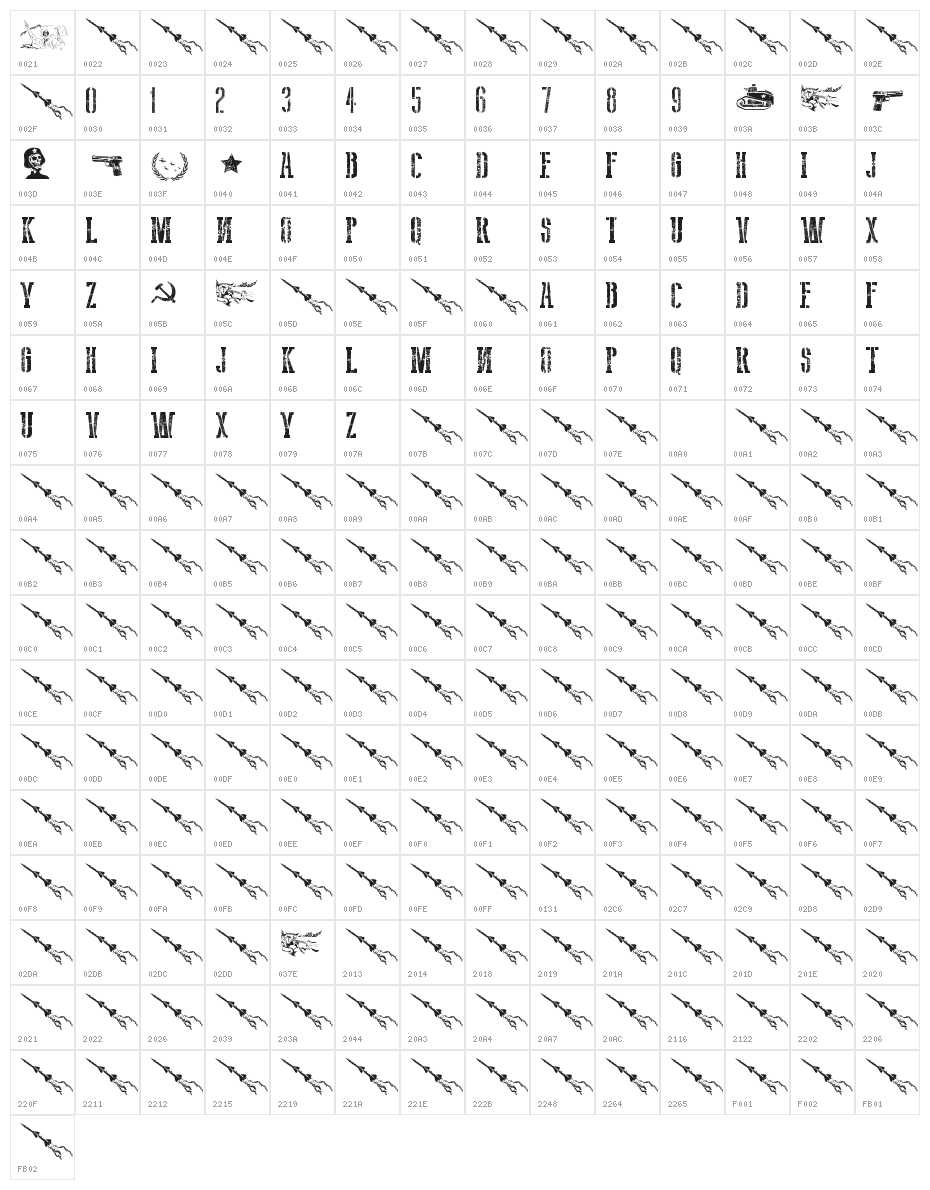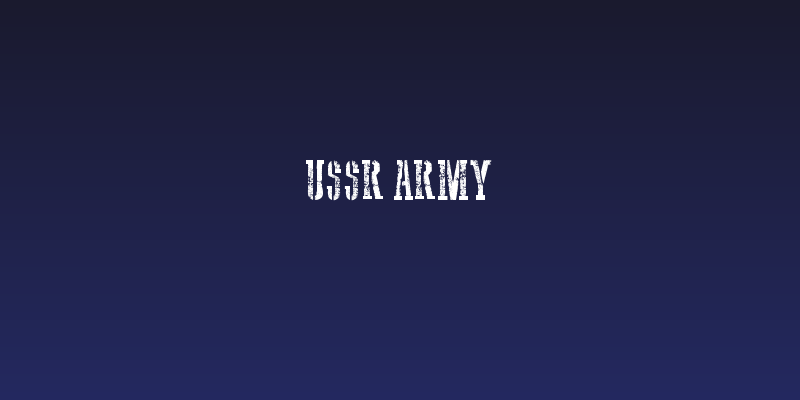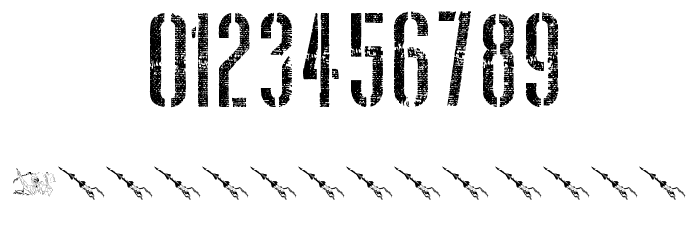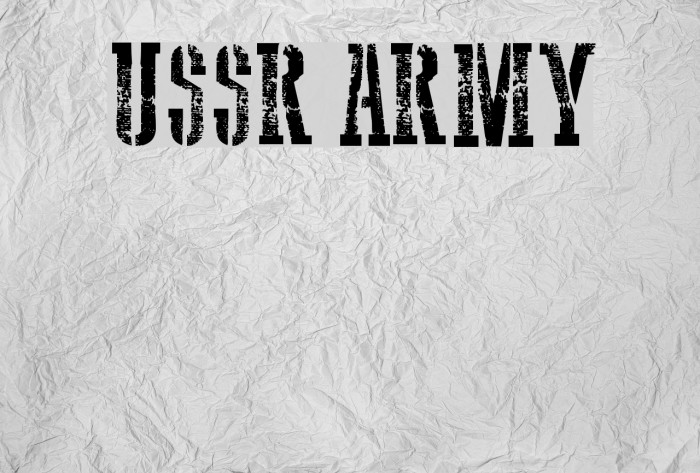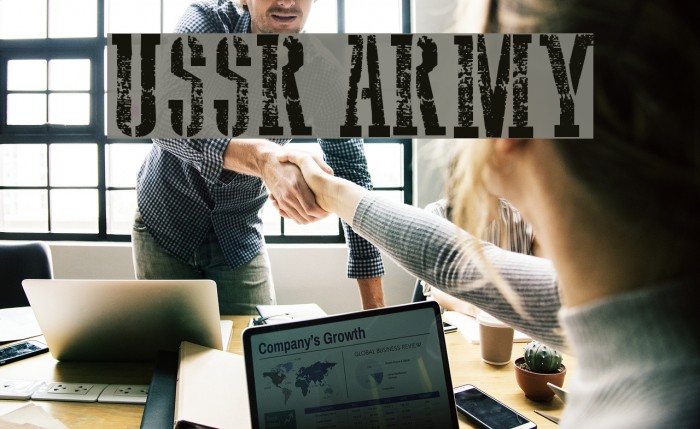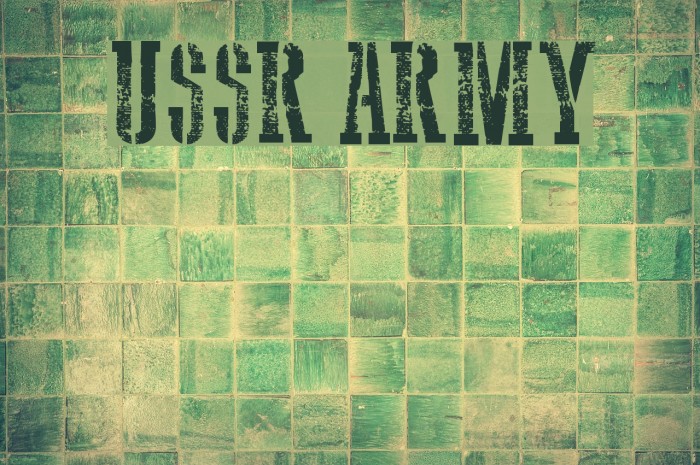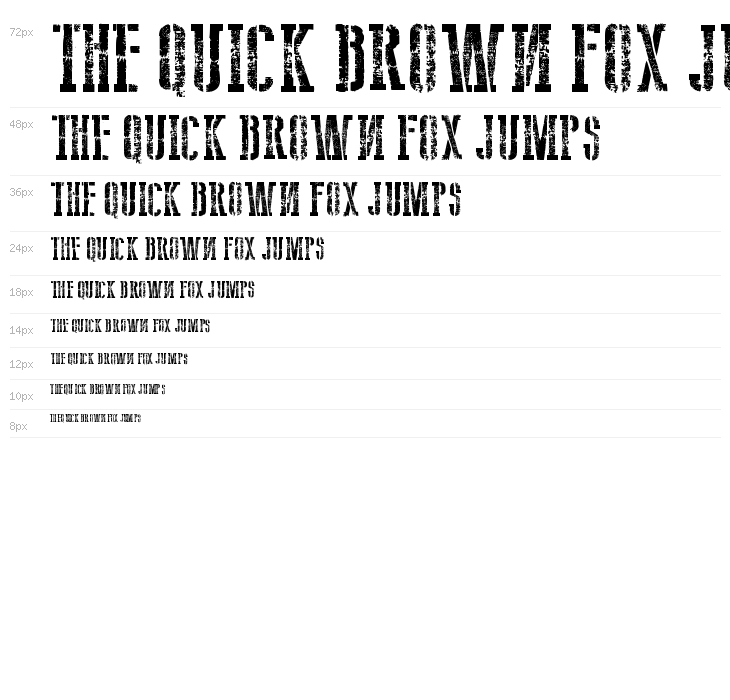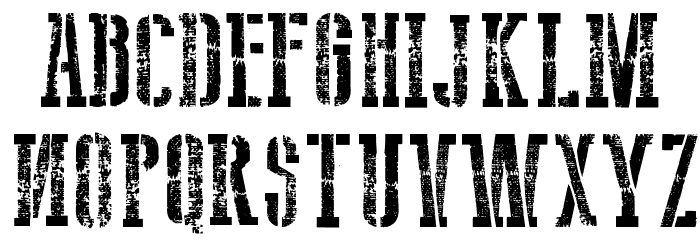
USSR Army Font
USSR Army Description
This font features a bold, distressed style reminiscent of military stencils, conveying a rugged and utilitarian aesthetic. The characters are uppercase with a uniform height, and the texture suggests wear and tear, adding a vintage, industrial feel. The numbers follow the same style, maintaining consistency across the character set. The font's boldness and texture make it suitable for impactful designs where a strong, gritty presence is desired.
| Overall Style | Vintage, Industrial |
| Proposed Projects | Ideal for military-themed posters, vintage designs, industrial branding, and any project requiring a strong, gritty aesthetic. |